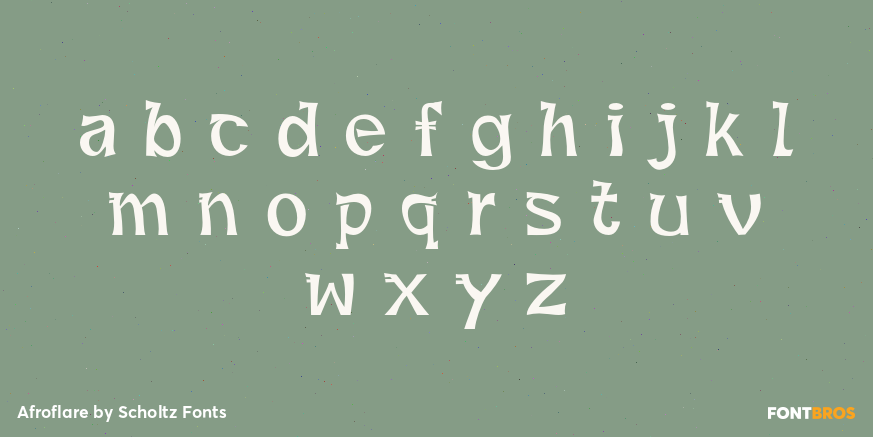
Afroflare
Font Family by Scholtz Fonts
Afroflare is a playful display font with a bold, wacky personality and a distinctly adventurous feel. Its lively shapes give it an expressive, offbeat presence that stands out quickly in short headlines, titles, and attention-grabbing compositions.
With its fun, character-rich look, this single-style release is a natural fit for posters, branding, themed packaging, social graphics, and other decorative display work that calls for a spirited, unconventional voice. It works especially well when you want typography to bring humor, energy, or a slightly safari-inspired mood to the page.
Created by Scholtz Fonts, Afroflare offers a focused one-style approach for designers who want a distinctive statement font without overcomplicating the palette.